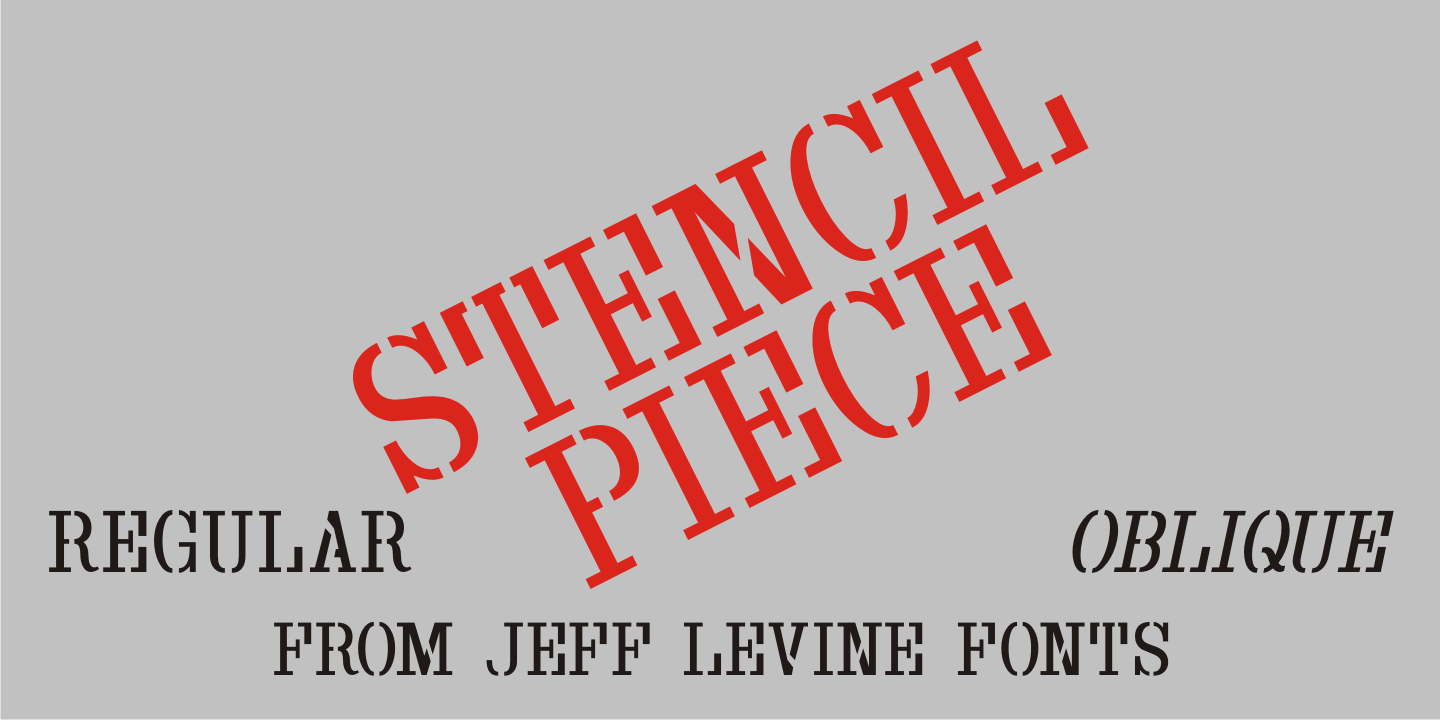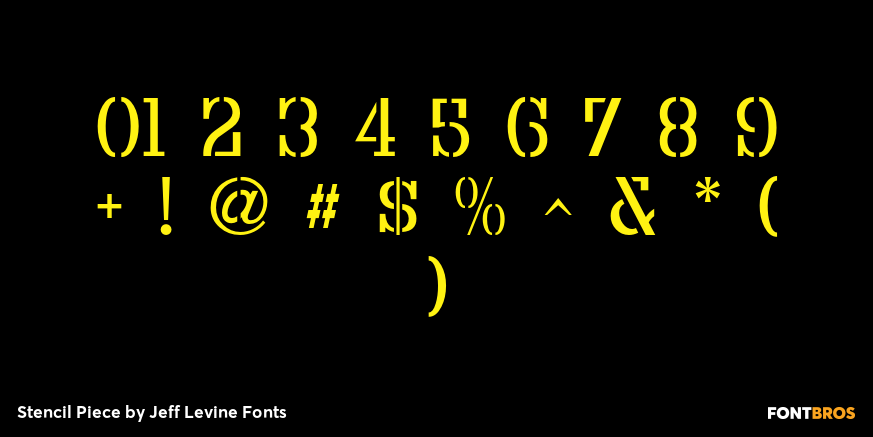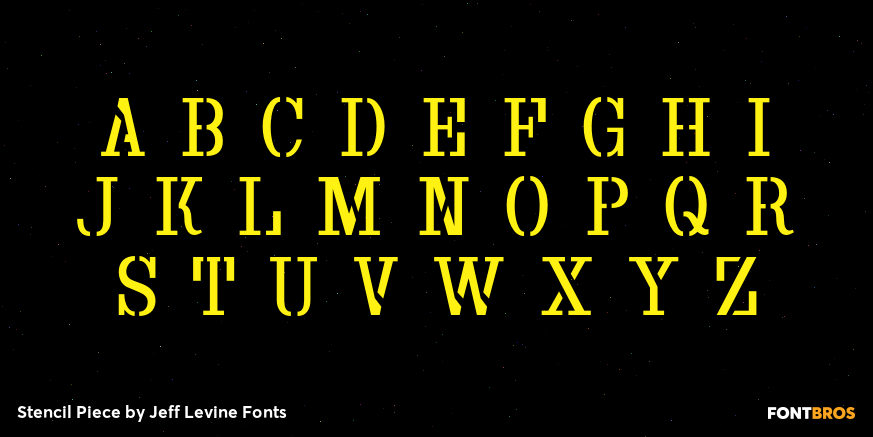
Stencil Piece
Based on an antique metal stencil plate used for identifying crates, bales or barrels, Stencil Piece JNL is one of the numerous stencil designs available through Jeff Levine Fonts.
The type design is available in both regular and oblique versions.